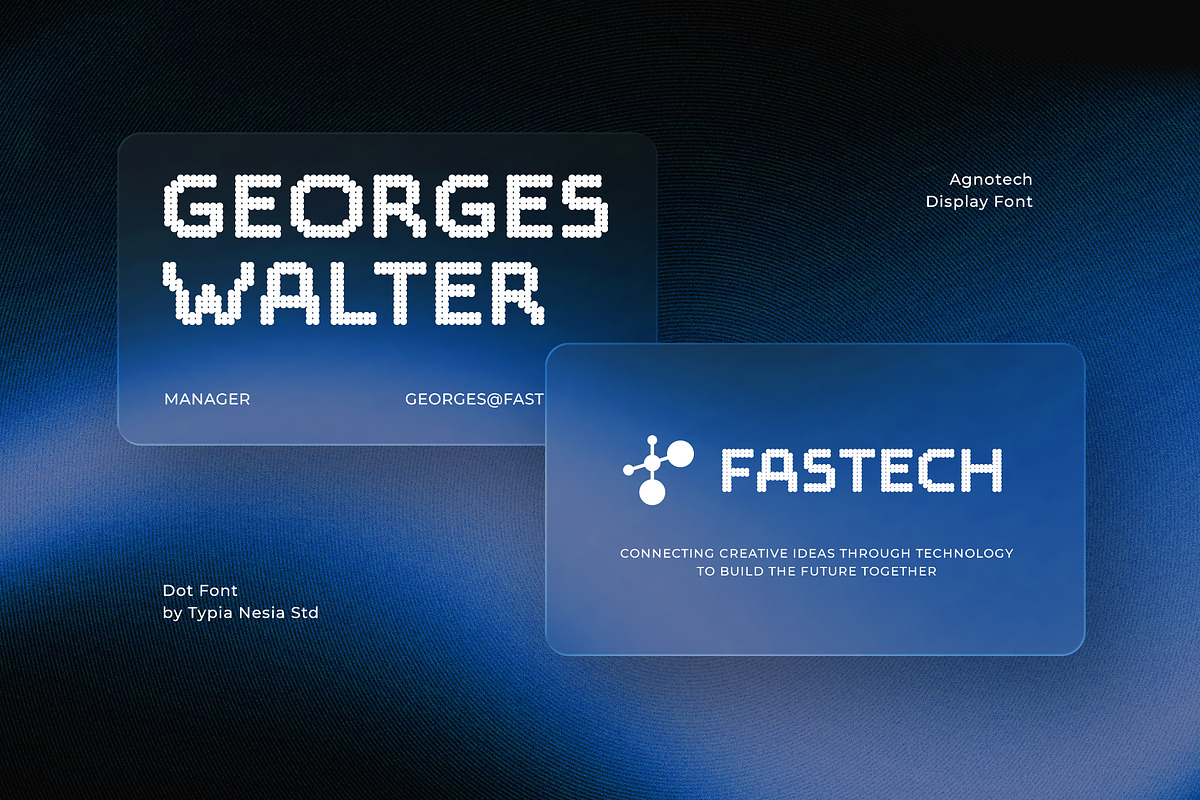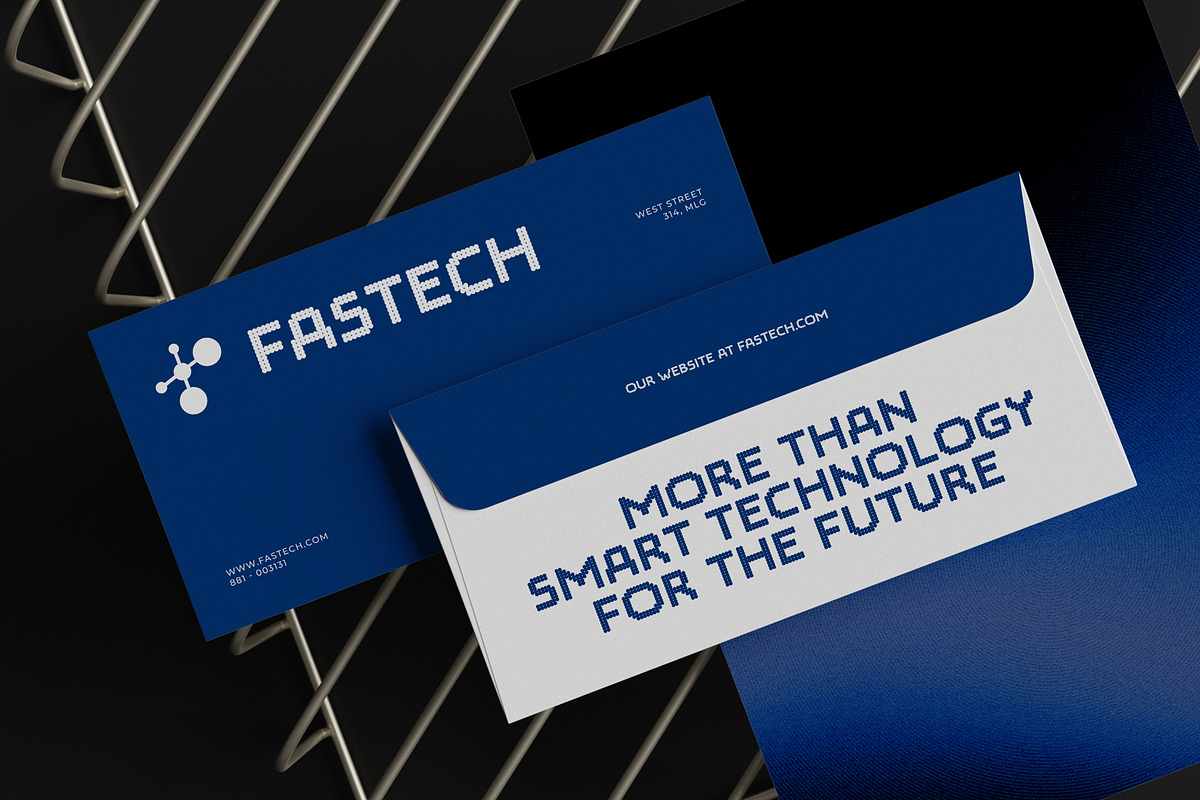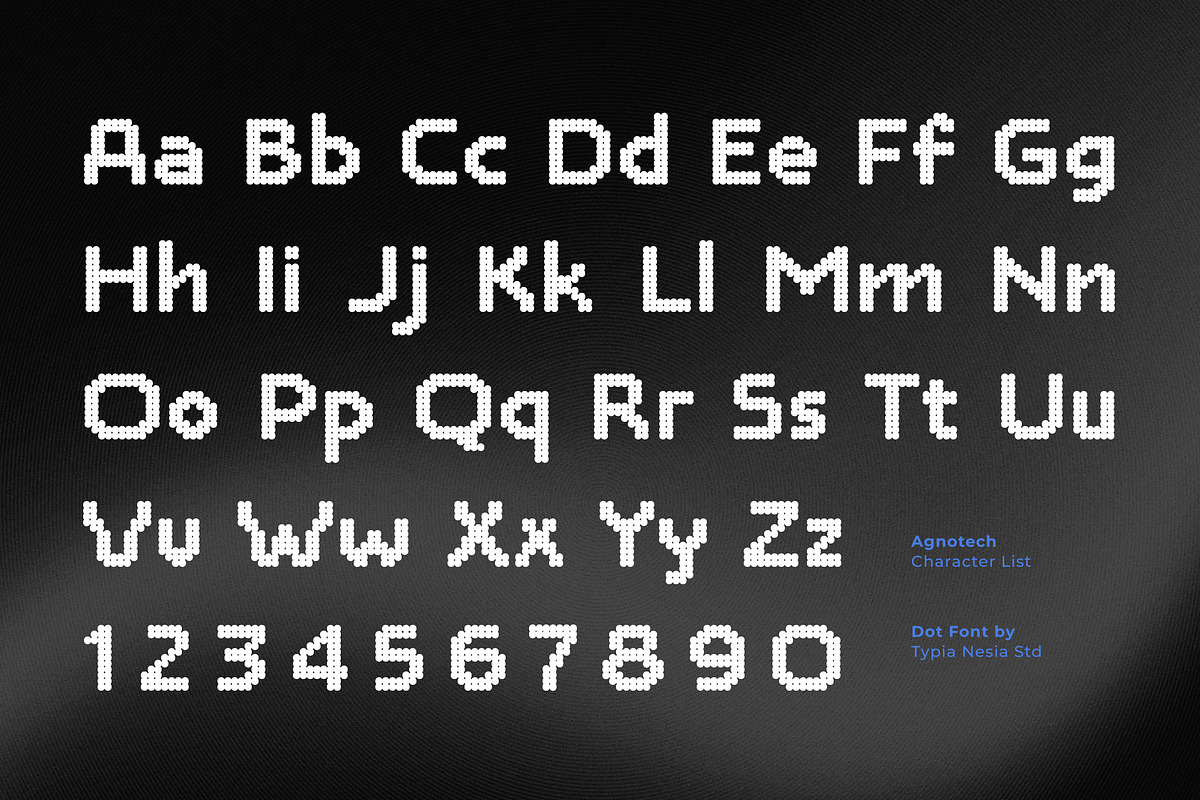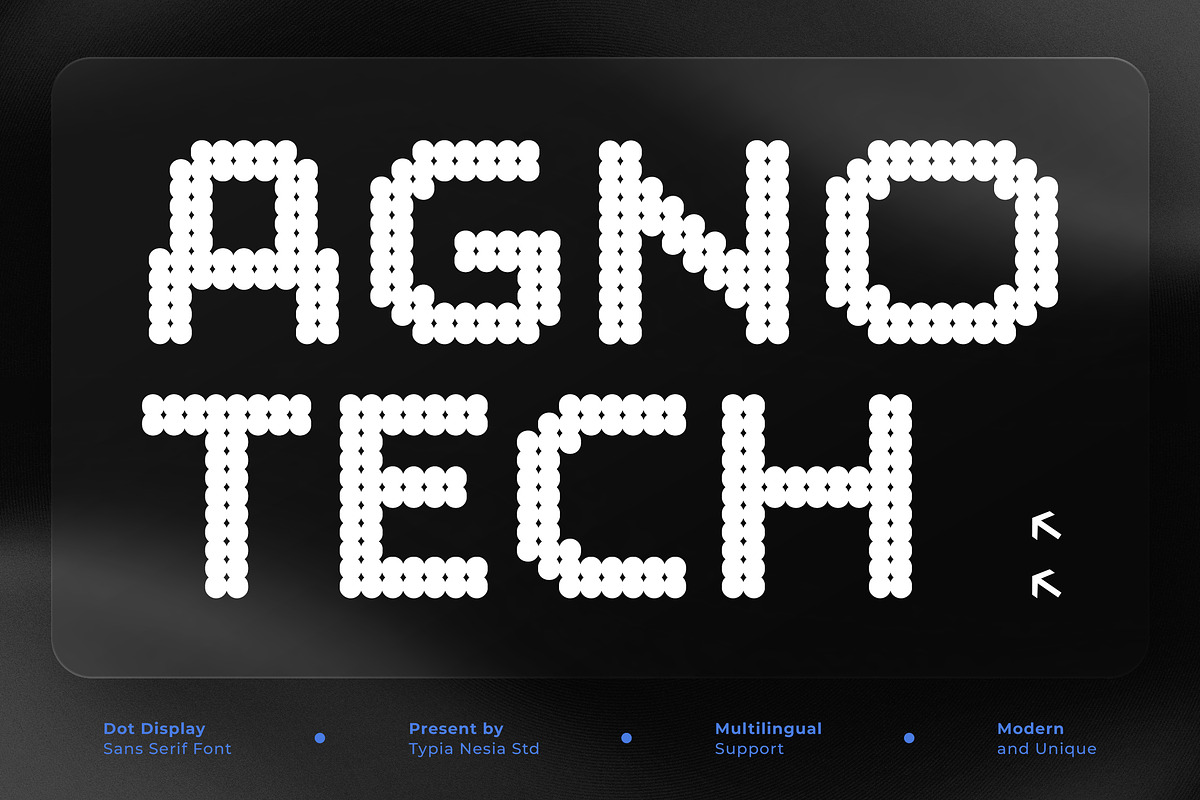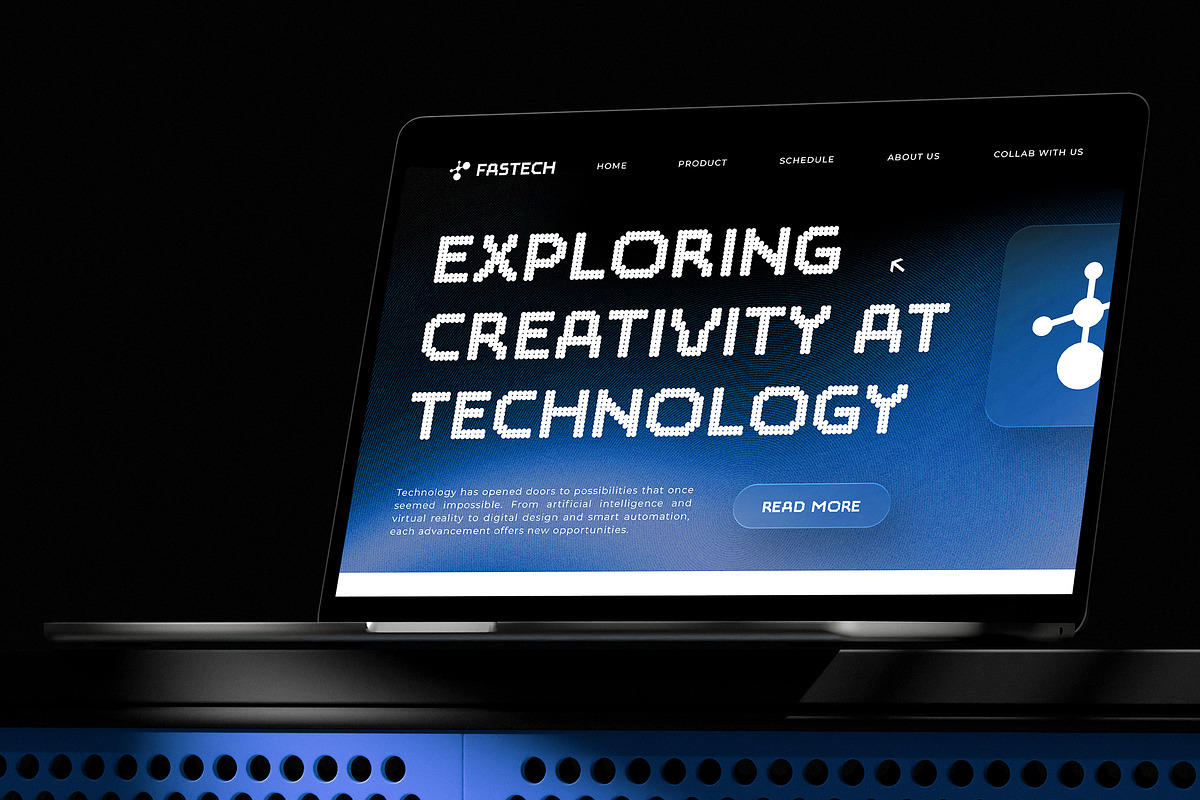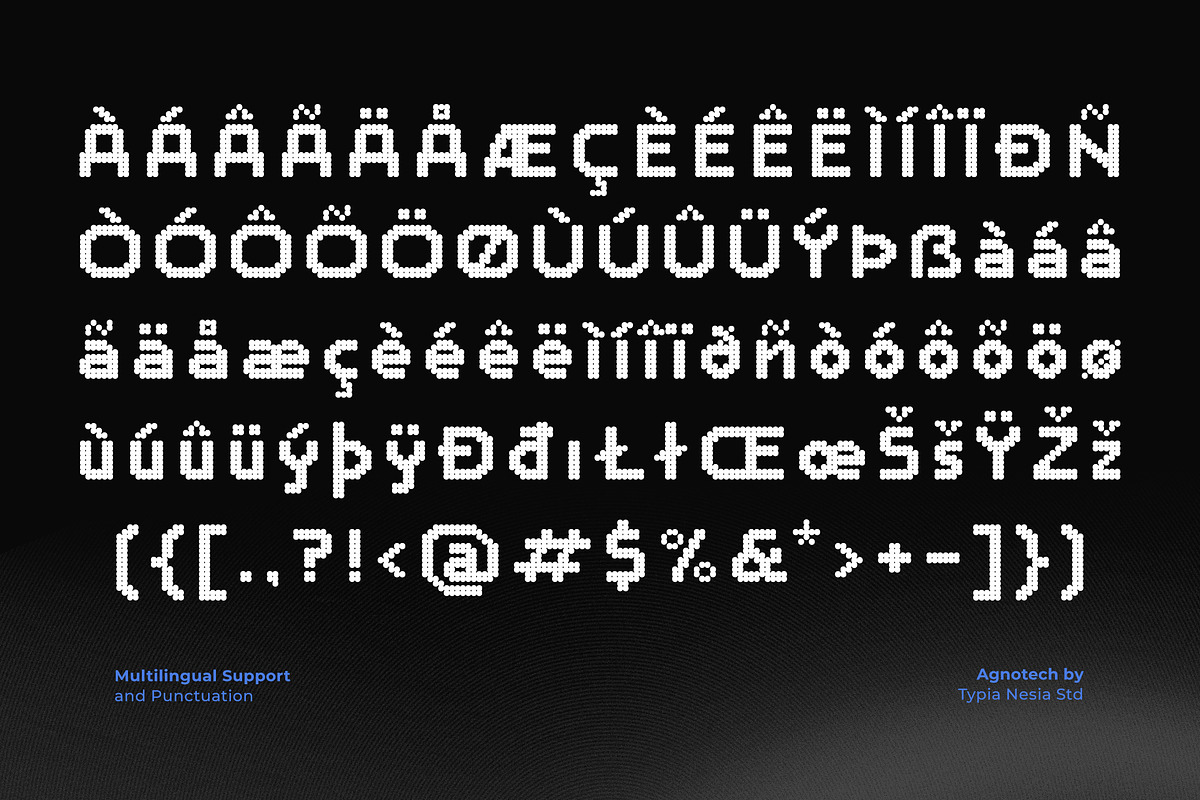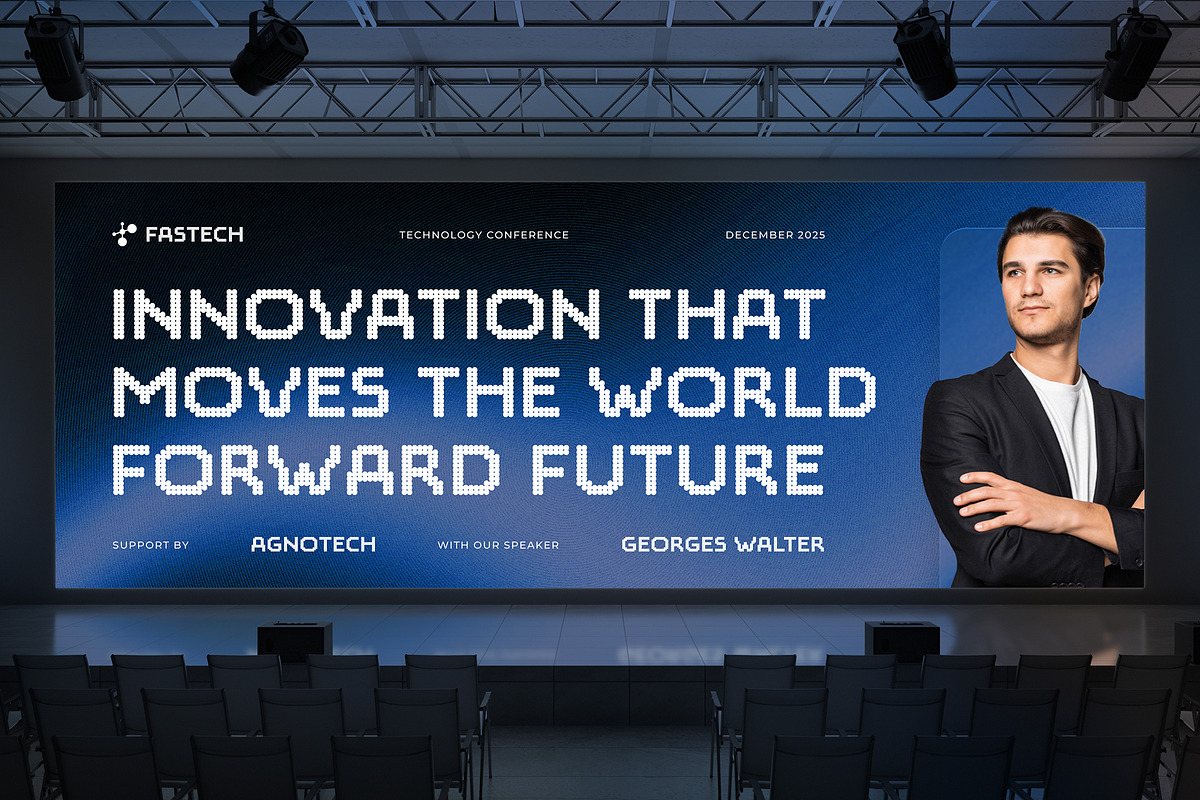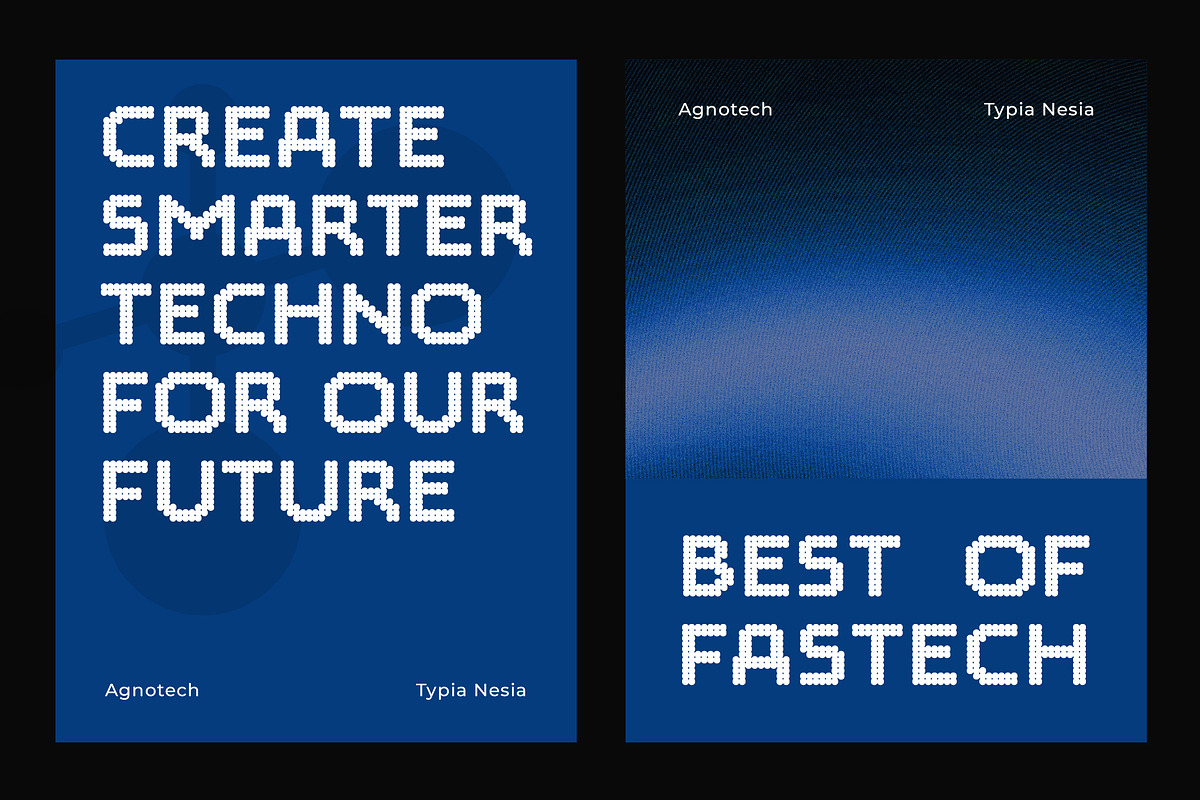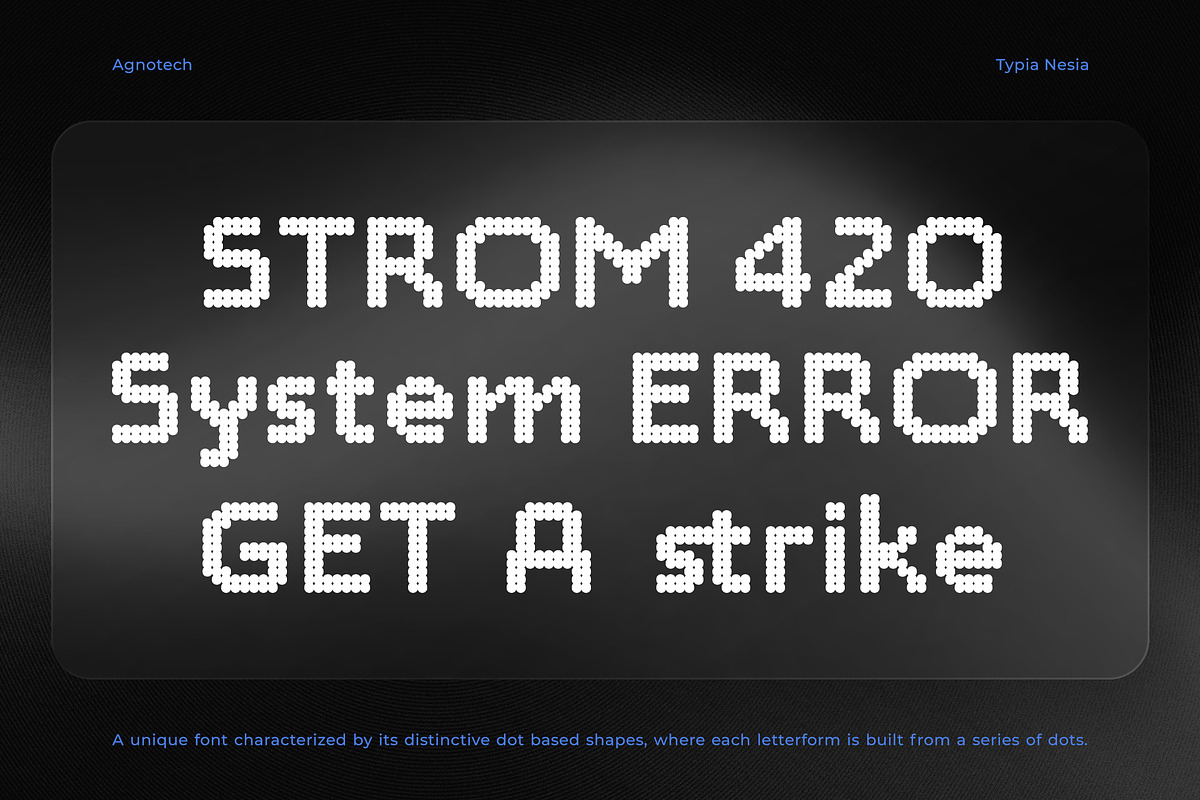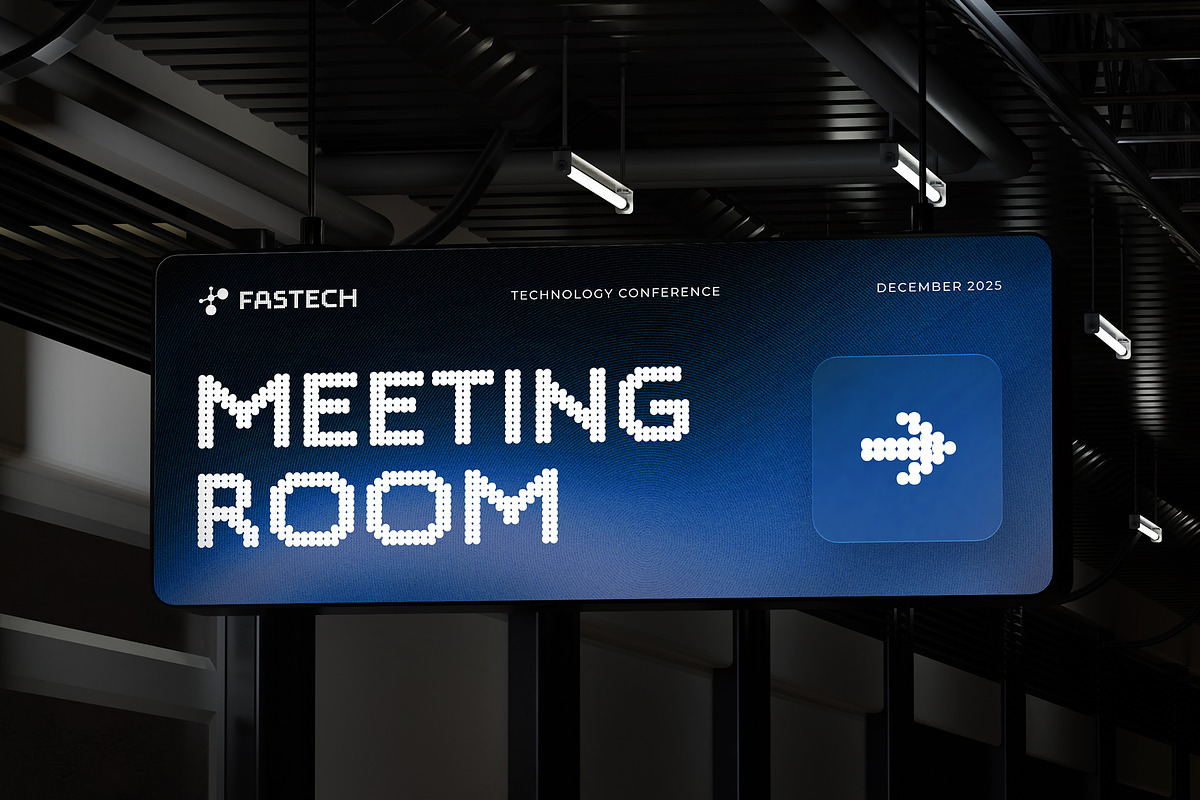
Agnotech - Futuristic Dot Pixel Sans
Agnotech - Modern Futuristic Dot Pixel Sans Font - Retro Vintage Game & Tech Display Font
Agnotech is a modern, dot-matrix style display font. It features a clean, striking pixel construction that gives it a modern and futuristic appearance, while subtly nodding to retro 8-bit aesthetics, making it perfect for tech company logos, software interfaces, event posters, web and app design, especially in scifi or gaming contexts and any projects requiring a clear and digital look. Agnotech includes extensive multilingual and punctuation support. It's an effective tool for conveying innovation and a slightly Vintage screen feel in a clear, contemporary manner.